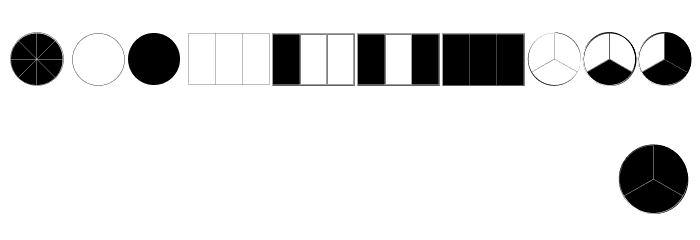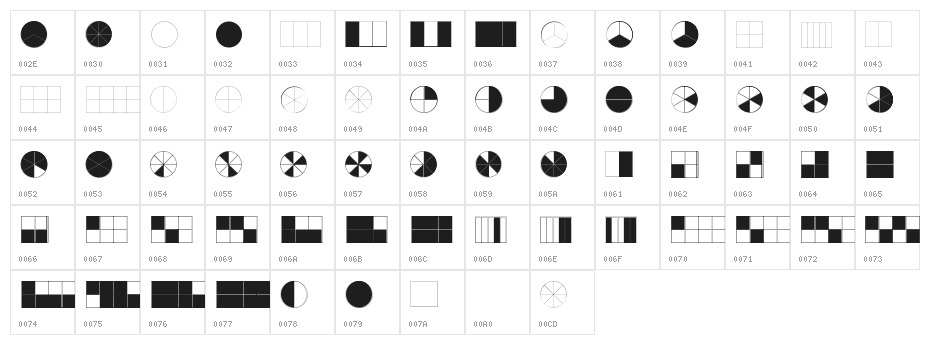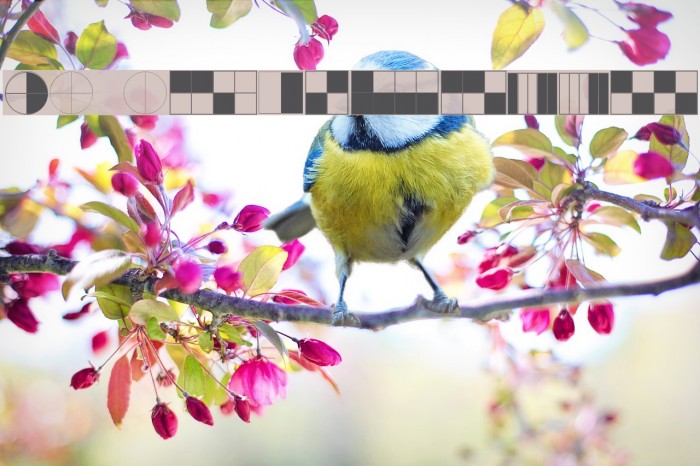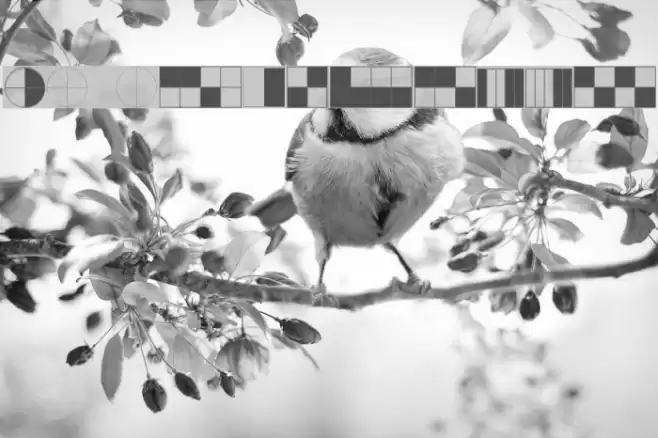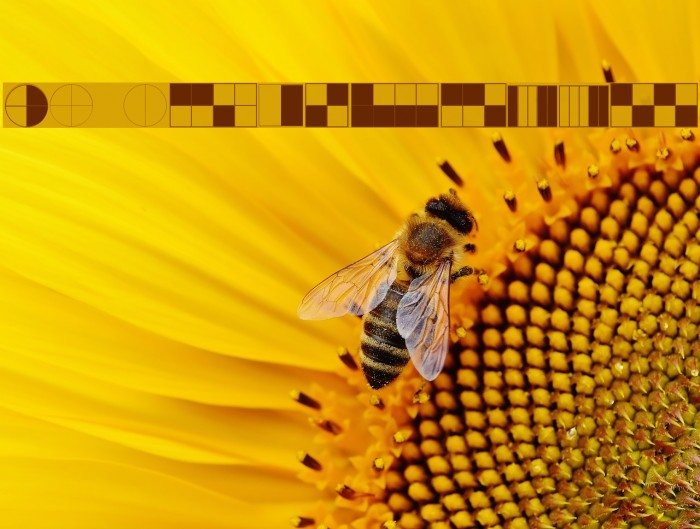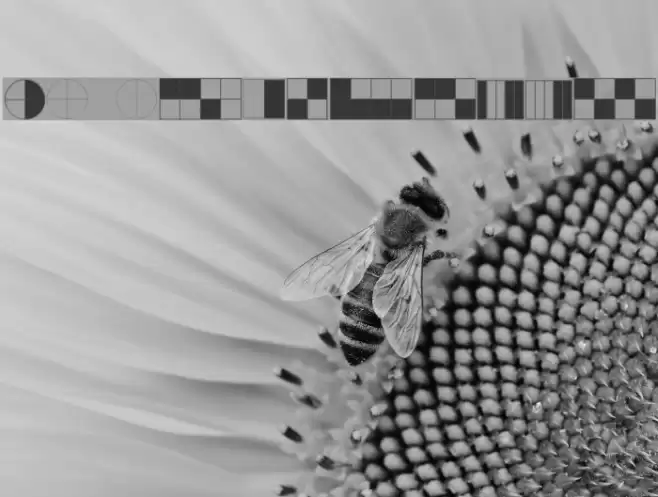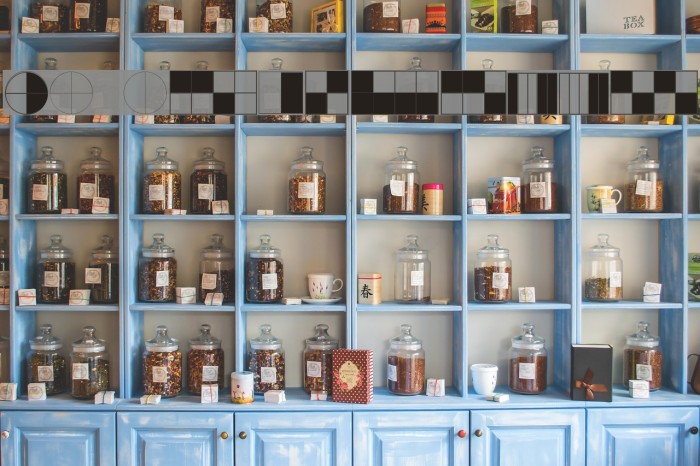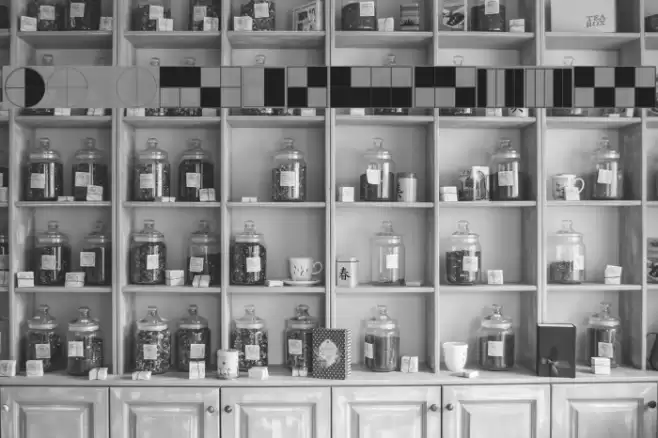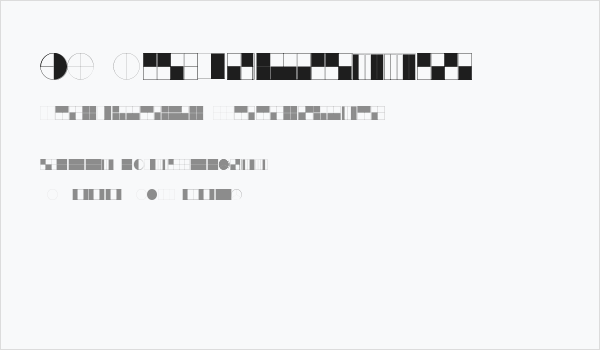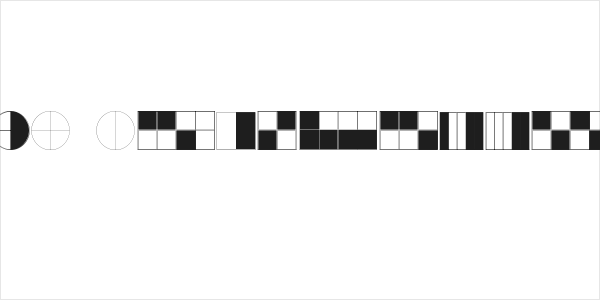
KG Fractions Font
KG Fractions Description
A highly illustrative, educational font featuring geometric shapes such as circles and squares divided into fractional segments, with alternating filled and unfilled sections to visually represent mathematical fractions.
| Overall Style | Educational, Decorative |
| Use Case | Educational materials, math games, instructional graphics. |
| Proposed Projects | Math worksheets, educational posters, classroom materials, interactive learning tools. |